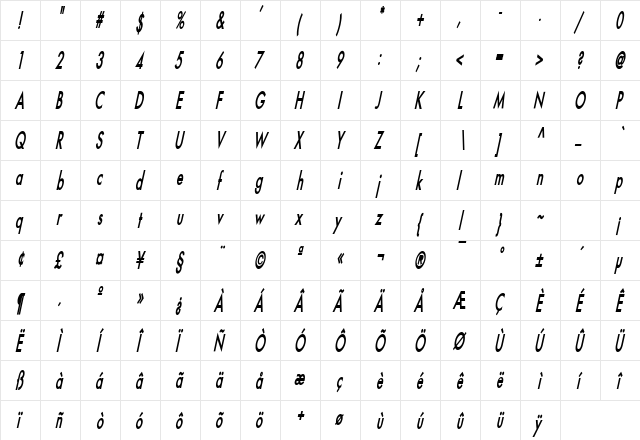
Fusi Thin Bold Italic
Design Context for Fusi Thin Typeface
Fusi Thin is a composed and adaptable typeface that performs quietly and consistently across a wide range of design contexts. The slanted form adds forward momentum and visual energy. The heavy weight commands attention and anchors typographic hierarchies.
Pro Tip: Use Fusi Thin for emphasis, pull quotes, and subheadings where its slanted energy can add rhythm to the layout.